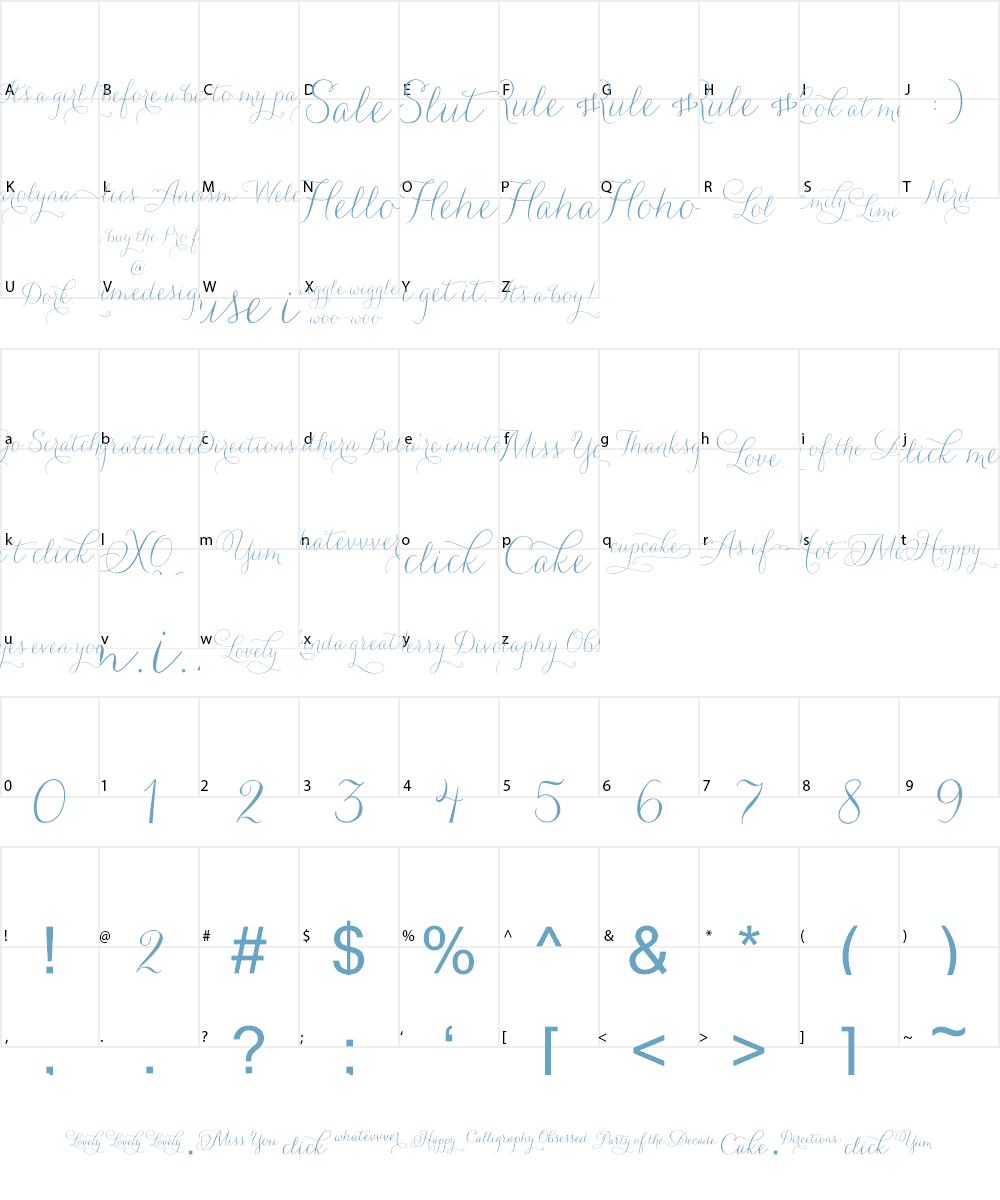
I'm super proud of this one :) This fun collection of words was created using Carolyna Pro - visit me on www.emilylimedesign.etsy.com if you are interested in purchasing the actual fonts used to create these words. For commercial licenses, visit me at www.emilylimedesign.etsy.com